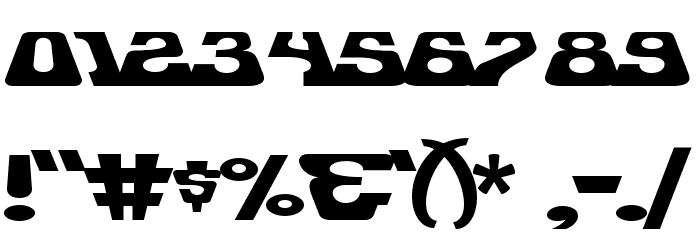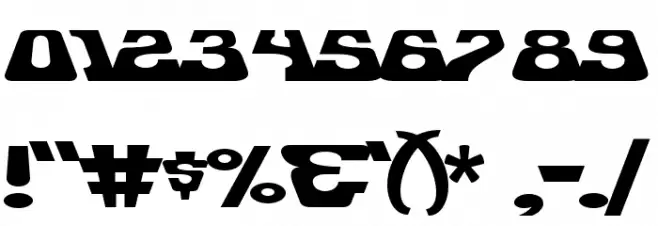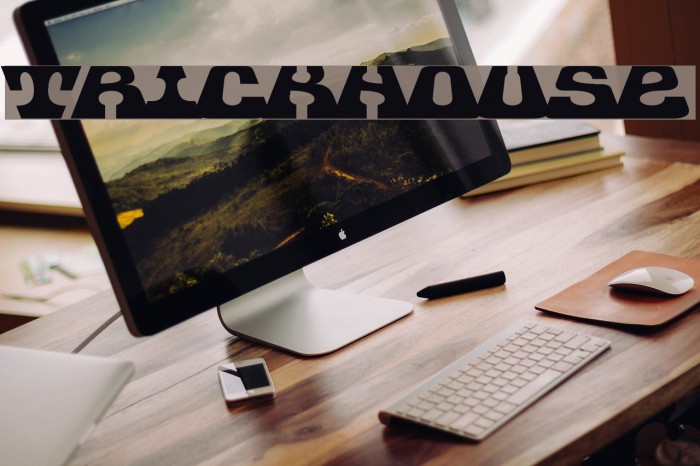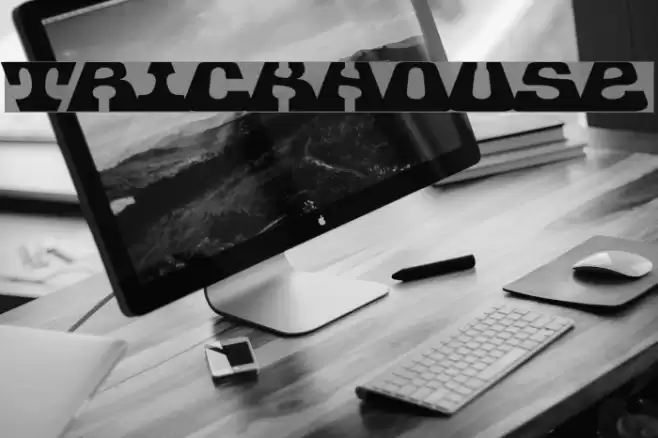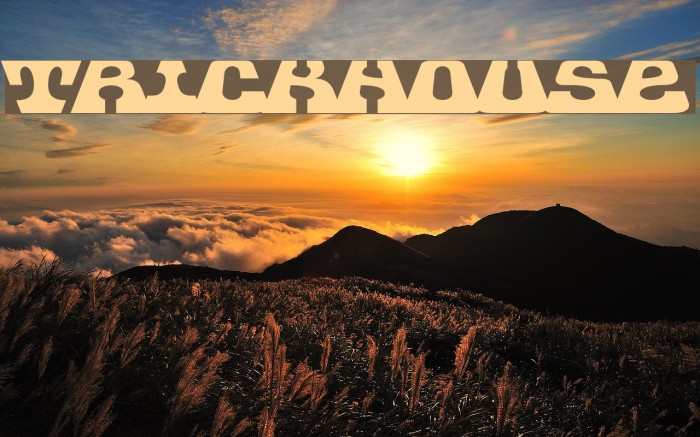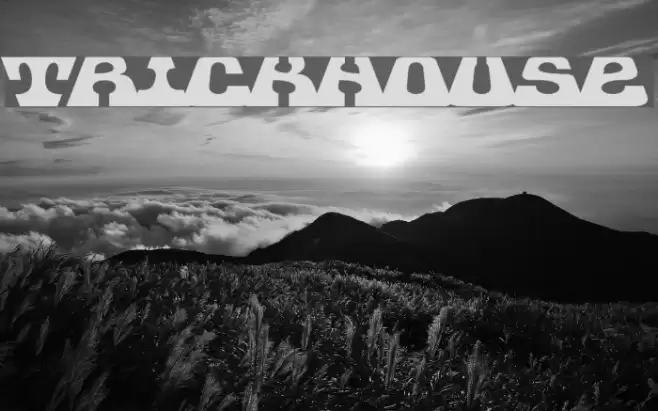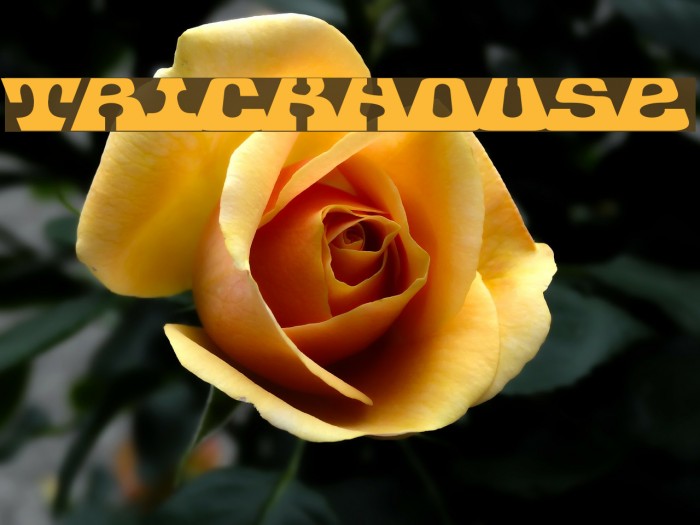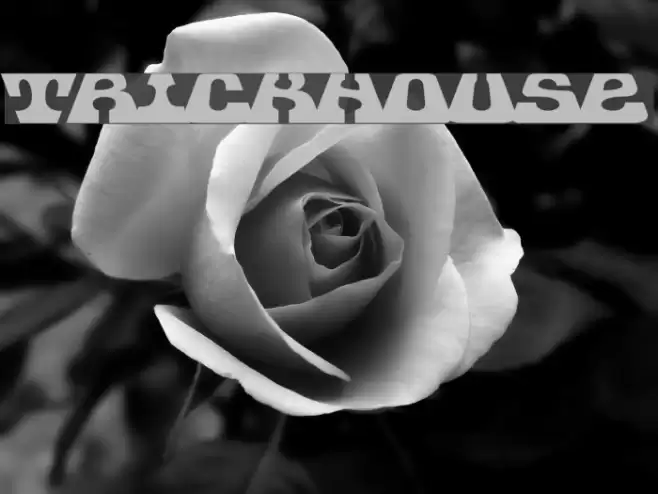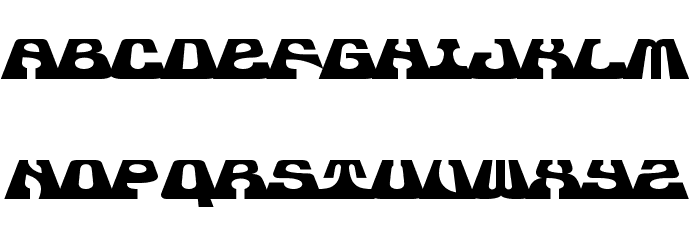
Trickhouse Font
Trickhouse Description
This font exhibits a bold and striking design, characterized by its thick, angular strokes and unique geometric shapes. The letters are crafted with a sense of playfulness and creativity, featuring unexpected cuts and angles that give it a dynamic and energetic appearance. The uppercase and lowercase letters maintain a consistent style, while the numerals and special characters complement the overall aesthetic. This font's boldness and distinctiveness make it stand out, capturing attention with its unconventional and artistic flair.
| Proposed Projects | Ideal for posters, branding, and creative projects that require a bold statement. |